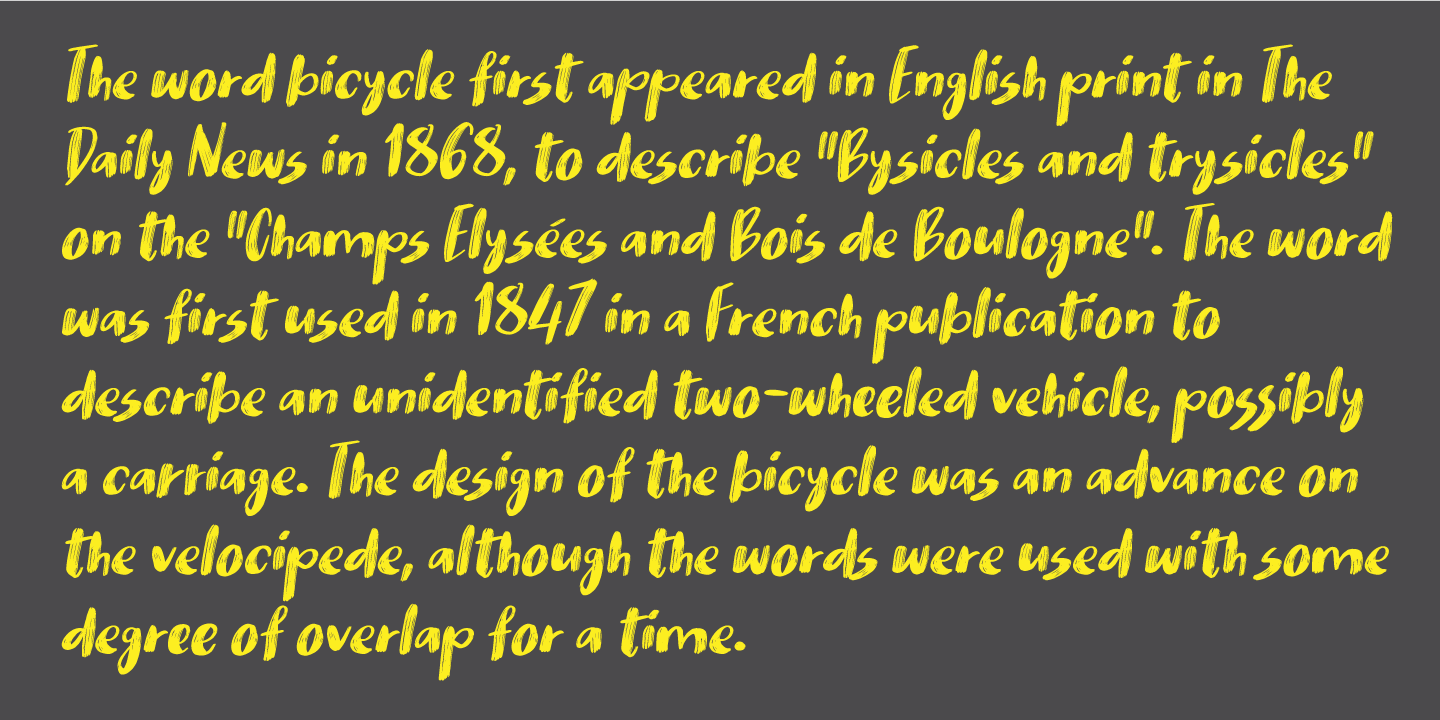
Nikotinus Font is perfect for vintage tobacco shop branding, retro cigar lounge signage, classic bar communications, nostalgic speakeasy designs, historical period publications, antique advertising materials, traditional gentleman's club branding, and authentic vintage lifestyle expressions.
What makes Nikotinus Font exciting is its sophisticated vintage charm and classic masculine elegance that captures the timeless appeal of traditional craftsmanship and refined gentlemen's culture. This distinguished typeface combines historical authenticity with contemporary functionality, creating letters that evoke the golden age of classic design and sophisticated tradition. The font's vintage-inspired character details and classic aesthetic make it an ideal choice for brands seeking to communicate heritage, sophistication, and timeless masculine appeal.
Nikotinus Font family includes Regular, Bold, Light, Vintage, Classic, and Distressed variations, plus traditional ornaments and period elements. Each style maintains the font's sophisticated character while providing comprehensive flexibility for creating authentic vintage design systems and classic brand communications that celebrate traditional craftsmanship and masculine elegance.
Vintage design specialists consistently choose Nikotinus Font Free Download for projects requiring classic sophistication and heritage visual impact. This remarkable typeface has gained recognition among traditional brands, vintage lifestyle companies, and heritage-focused organizations worldwide. The font's ability to convey sophistication and vintage authenticity makes it perfect for brands operating in traditional lifestyle, heritage, and classic masculine markets.
The design philosophy behind Nikotinus Font emphasizes vintage sophistication and classic heritage. Its letterforms feature traditional construction with carefully preserved details that reflect the craftsmanship and elegance found in classic design traditions and sophisticated masculine culture. The font's distinctive elements include vintage flourishes and classic character variations that create immediate emotional connection with audiences seeking authentic heritage experiences and traditional sophistication.
Creative agencies specializing in vintage and heritage branding frequently select Nikotinus Font for clients requiring classic communication and sophisticated brand expression. The font's versatility allows seamless integration into comprehensive vintage branding systems, from heritage campaigns to traditional product launches, ensuring consistent brand personality across all classic and sophisticated touchpoints.
The technical execution of Nikotinus Font demonstrates advanced understanding of vintage typography requirements and classic design standards. Optimized for both traditional print applications and modern digital media, the font includes extensive OpenType features that support heritage design workflows. The comprehensive character set and vintage symbol library make it suitable for international heritage campaigns requiring authentic classic typography with global sophisticated appeal.